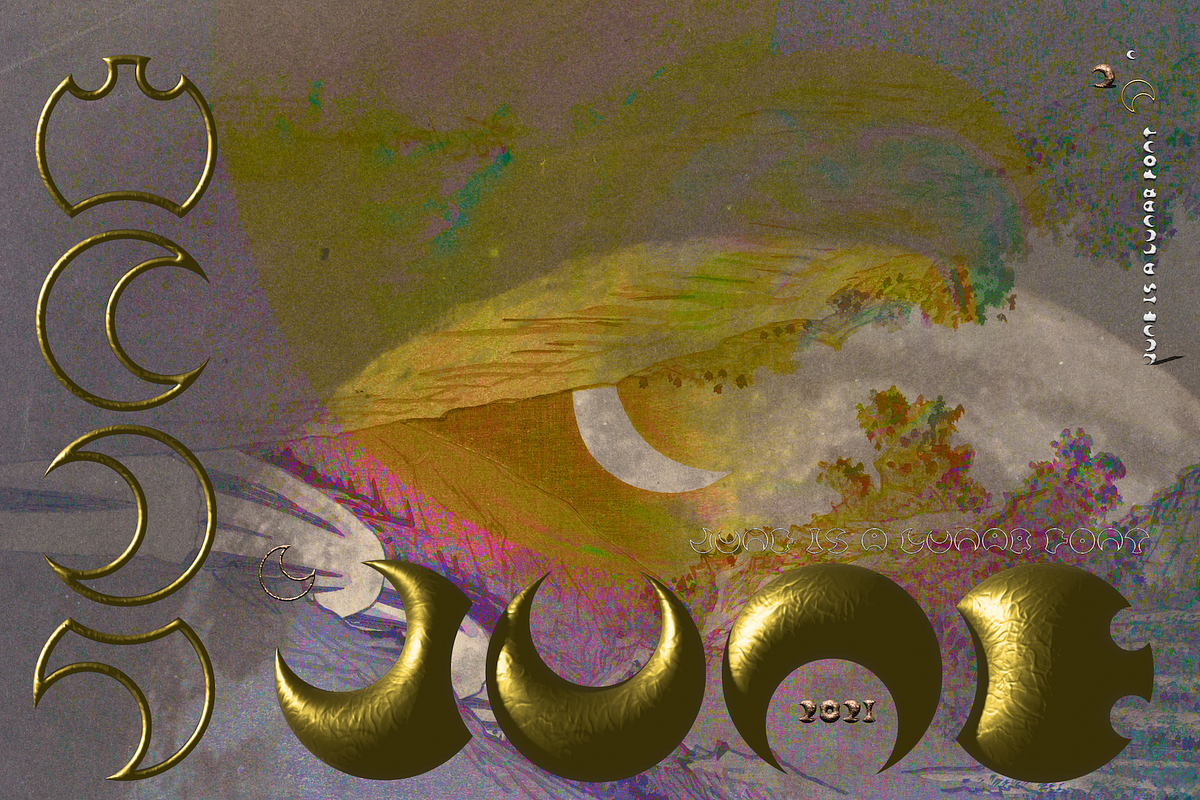
Retro Cyber Lunar Font Moon Typeface Free Download
Futuristic, bold, and packed with a retro sci-fi vibe, Retro Cyber Lunar Font Moon Typeface Free Download is a standout typeface inspired by cyberpunk and space aesthetics. Perfect for logos, posters, album covers, sci-fi projects, and gaming design, this font gives your projects a distinctive cosmic feel with modern, angular letterforms and high-tech detailing.
With its sharp lines, moonlit curves, and bold contrast, Retro Cyber Lunar adds an otherworldly edge to your typography. Whether you’re creating a futuristic brand identity or diving into space-themed content, this font will bring the adventure and exploration of the cosmos to life in your designs.